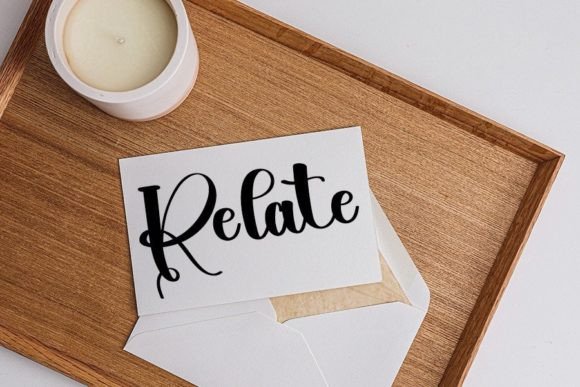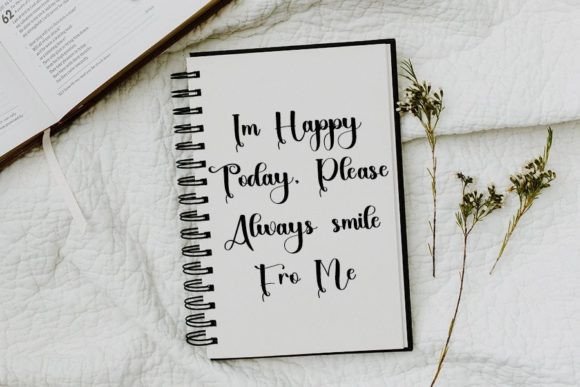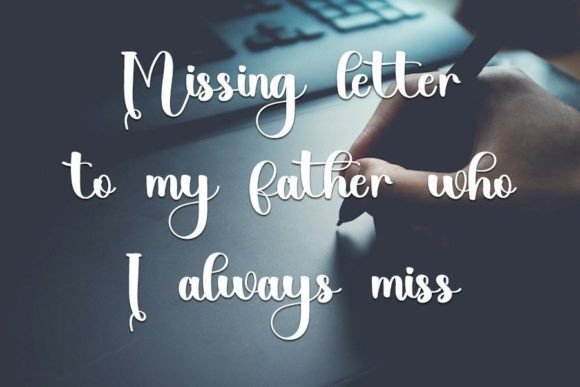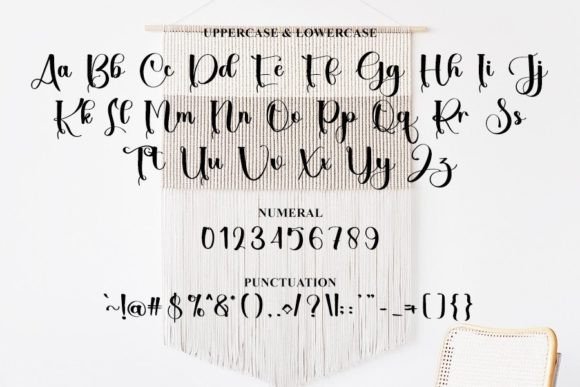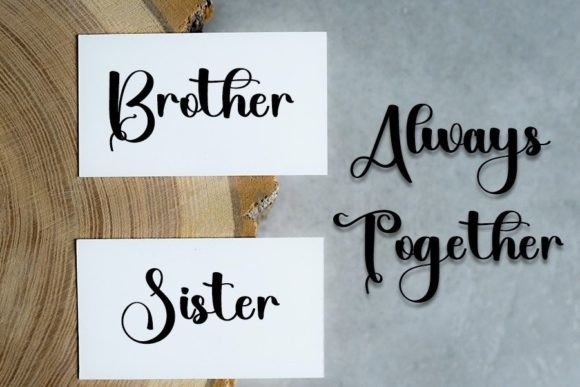
The Elusive Font: A Designer’s Quest for the Perfect Handwritten Style
I still remember the countless hours I spent searching for the perfect font for a client’s wedding invitation project. The design brief called for a stylish, handwritten font with a touch of classic elegance. I scoured the internet, tried out dozens of fonts, but none seemed to fit the bill. That was until I stumbled upon Daddy Font – a game-changer in the world of handwritten fonts.
First Impressions: A Love Affair with Daddy Font
As soon as I laid eyes on Daddy Font, I knew I had found the one. This stylish handwritten font boasts a contemporary atmosphere and impeccable form, inspired by timeless classic calligraphy. Its balanced and varied design makes it perfect for enhancing the beauty of any project.
An Honest Review: The Good, the Bad, and the Quirky
What I Love About Daddy Font ✨
- ✅ Elegant and sophisticated design, perfect for high-end projects
- ✅ Supports OpenType features, glyphs, and stylistic alternates
- ✅ Versatile and adaptable to various design styles
- ⚠️ Limited availability of condensed or expanded font styles
- ⚠️ Some users may find the font a tad too ornate for certain projects
The Designer’s Inspiration: A Backstory
Daddy Font was created with the intention of capturing the essence of timeless classic calligraphy. Its designer aimed to craft a font that would exude elegance, sophistication, and a touch of modernity. The result is a font that is both versatile and beautiful, perfect for a wide range of design projects.
Q: What type of projects is Daddy Font best suited for?
A: Daddy Font is perfect for high-end projects that require a touch of elegance and sophistication, such as wedding invitations, luxury branding, and editorial design.
Q: Does Daddy Font support OpenType features?
A: Yes, Daddy Font supports OpenType features, including glyphs and stylistic alternates. This allows for greater flexibility and creativity in your designs.